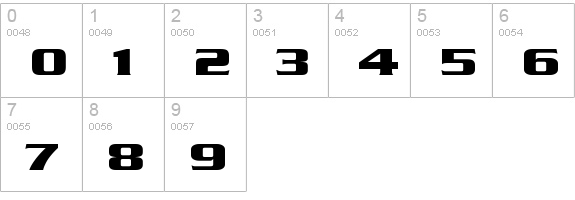
Serpentine-Bold-Bold Wd Font Details
Serpentine-Bold-Bold Wd is a strong, high-contrast variant in the Serpentine typeface family \xE2\x80\x94 well suited to headlines, attention-grabbing titles, and strong calls-to-action.
Serpentine-Bold-Bold Wd font is a dynamic and powerful typeface that exudes confidence and strength. With its bold and thick letterforms, this font is perfect for making a statement in your designs. Whether you're creating bold headlines, eye-catching posters, or impactful logos, Serpentine-Bold-Bold Wd font is sure to leave a lasting impression. This font features a unique combination of sharp angles and smooth curves, giving it a modern and edgy feel. Its bold weight adds extra emphasis and makes it stand out from the crowd. The wide letter spacing enhances legibility even at smaller sizes, ensuring that your message is clear and easily understood. And the best part? Serpentine-Bold-Bold Wd font is available for free! You can download this font at FontsMarket.com, a trusted source for high-quality and diverse font collections. With just a few clicks, you can have this powerful typeface in your design arsenal, ready to elevate your projects to new heights. Whether you're a professional designer or a hobbyist, Serpentine-Bold-Bold Wd font offers endless possibilities for creative expression. Its versatility makes it suitable for a wide range of applications, from branding and advertising to web design and social media graphics. No matter how you choose to use it, Serpentine-Bold-Bold Wd font is guaranteed to make a bold statement and leave a lasting impression on your audience. So why wait? Download Serpentine-Bold-Bold Wd font for free today at FontsMarket.com and unleash its power in your next design project. Elevate your typography game and create stunning visuals that captivate and inspire. With Serpentine-Bold-Bold Wd font, the possibilities are endless, and your creativity knows no bounds.